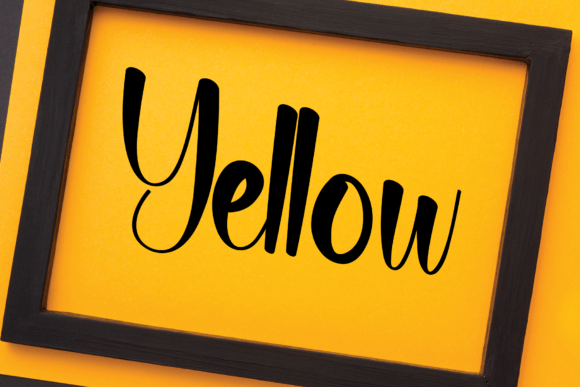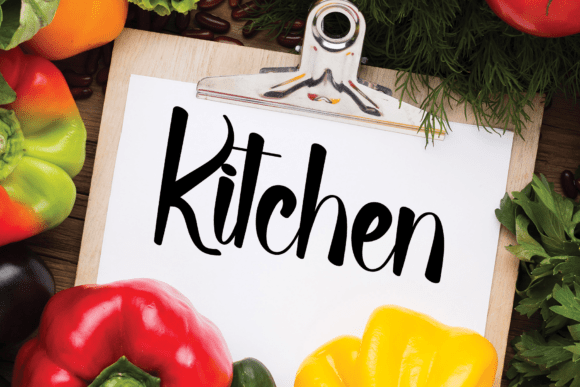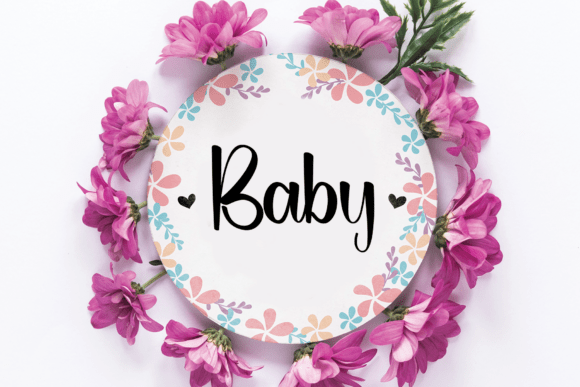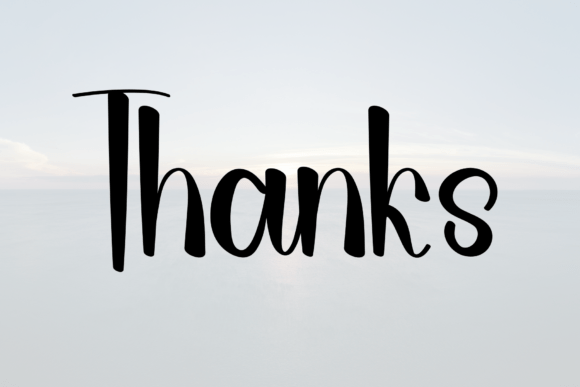
A Heartfelt Touch: Discovering the Amorelia Font
There’s nothing quite like the rush of inspiration that comes from a blank page and a blank mind. You’re staring at a screen, ideas swirling, and suddenly – it hits you. The perfect font, the perfect color scheme, the perfect design. For many creatives, this is the moment when a project truly comes to life. And for those who’ve had this experience, we’re sure you’ll love the Amorelia Font – a charming handwritten font that captures the essence of heartfelt perfection.
The Amorelia Font is more than just a typeface – it’s a way to add a personal touch to your designs. With its smooth strokes and organic lines, this font is perfect for branding, invitations, and social media graphics. Whether you’re a seasoned designer or just starting out, the Amorelia Font is a valuable addition to your toolkit, offering a unique and versatile way to express your creativity.
Amorelia Font Key Features
- Font Family: Amorelia Font has 4 font styles (Regular, Italic, Bold, Bold Italic) to cater to various design needs.
- Font Size: Amorelia Font supports a wide range of font sizes, from 8pt to 72pt, making it suitable for various design applications.
- Resolution: Optimized for high-resolution displays, Amorelia Font supports resolutions up to 300 DPI, ensuring crisp and clear text rendering.
- Unique Characteristics: The Amorelia Font features a unique blend of elegance and sophistication, with a subtle flair that adds a touch of whimsy to any design.
- Language Support: Amorelia Font supports a wide range of languages, including Latin, Cyrillic, and Greek alphabets, making it a versatile choice for global designs.
Amorelia Font Review
Amorelia Font is a beautiful, elegant script font that is sure to catch the eye. Here are some of its notable features:
- ✨ Unique, hand-painted aesthetic that adds a touch of sophistication to any design.
- ✨ Wide range of languages supported, making it a great choice for multi-language projects.
- ✨ Highly customizable, with plenty of options for adjusting size, color, and style.
However, like any font, Amorelia has its limitations:
- ⚠️ May not be suitable for small text sizes, as the intricate details can become difficult to read.
- ⚠️ Limited font weights and styles, which may limit its versatility in certain design contexts.
Overall, I’m impressed with the Amorelia Font. Its unique aesthetic and high level of customization make it a great choice for designers looking to add a touch of elegance to their projects. However, its limitations should be taken into consideration when choosing this font for certain projects.
Tips for Getting the Most Out of Amorelia Font
Use Amorelia Font for romantic and elegant designs.
Pair it with cursive or script fonts for a unique look.
Experiment with different font sizes and colors to create contrast and emphasis.
Valentine’s Day and anniversary cards.
Romantic quotes and poems.
Alternatives to Amorelia Font
Carolyna Pro is a modern script font with elegant and sophisticated characteristics. It’s ideal for use in wedding invitations, branding, and other creative projects where a touch of luxury is desired.
Compared to Amorelia Font, Carolyna Pro has a more refined and polished feel, making it suitable for high-end applications.
Great Vibes is a beautiful, handwritten script font that conveys a sense of friendliness and approachability. It’s perfect for use in advertising, social media, and other projects where a casual, conversational tone is desired.
Unlike Amorelia Font, Great Vibes has a more relaxed and informal feel, making it suitable for a wider range of applications.
Dancing Script is a flowing, elegant script font that’s perfect for use in creative projects, such as book titles, magazine headings, and website headers.
Q: What is the recommended font size for the Amorelia Font?
The Amorelia Font is designed to be versatile and can be used at various font sizes. However, for optimal readability, we recommend using font sizes between 12px and 24px for body text and larger font sizes for headings and titles. You can experiment with different font sizes to find the best fit for your design project.